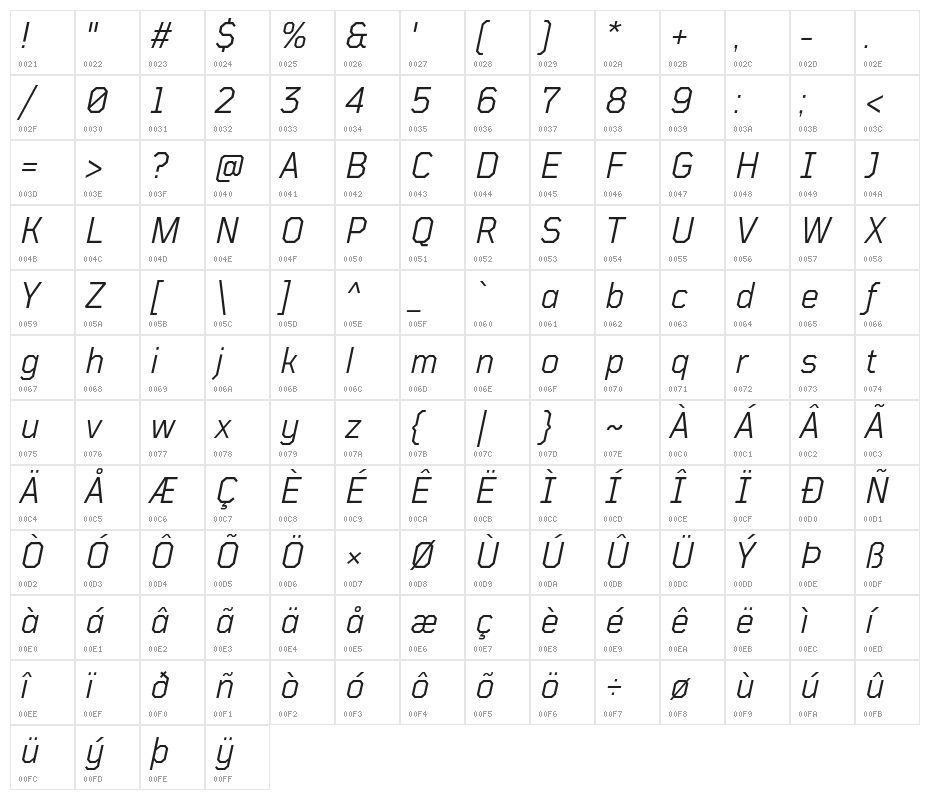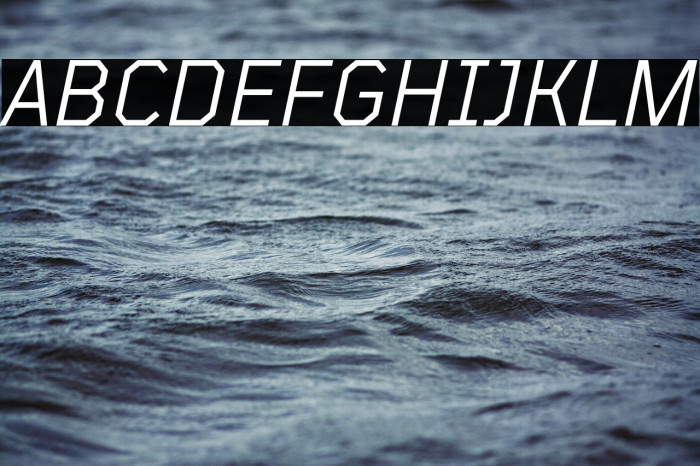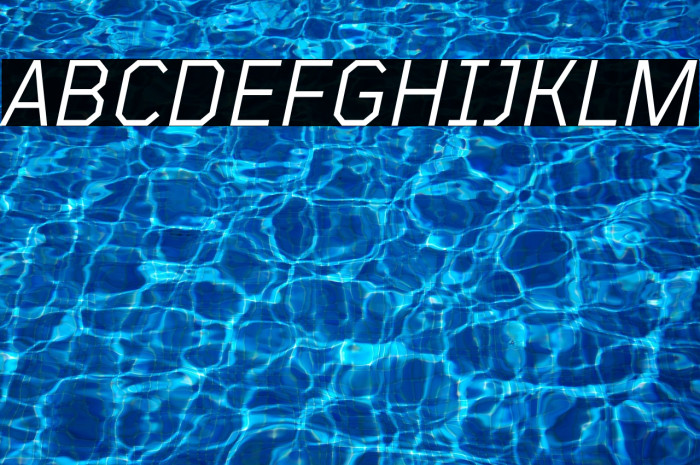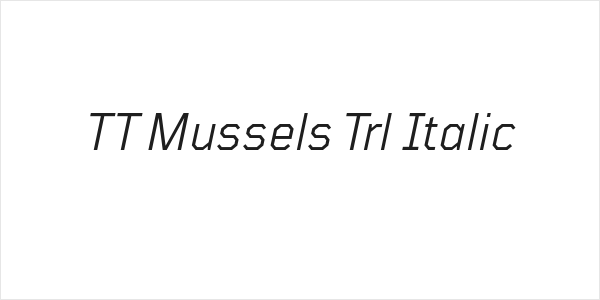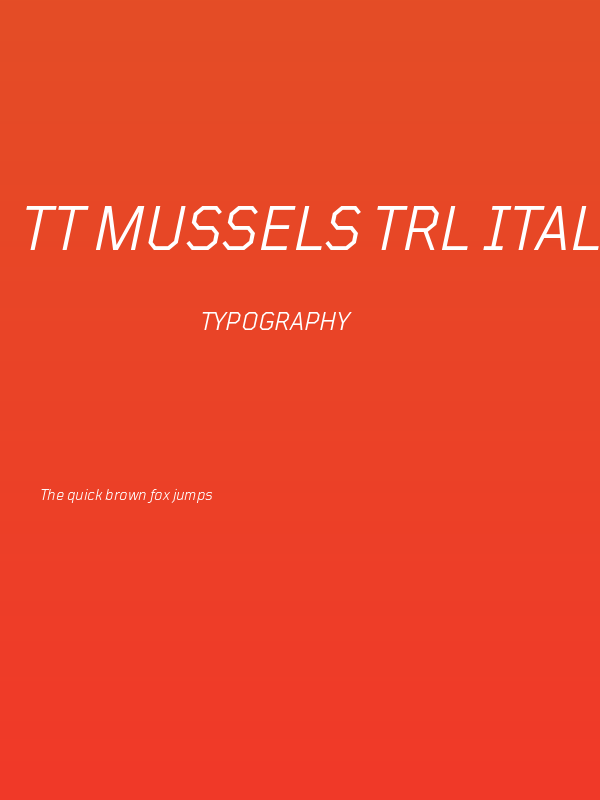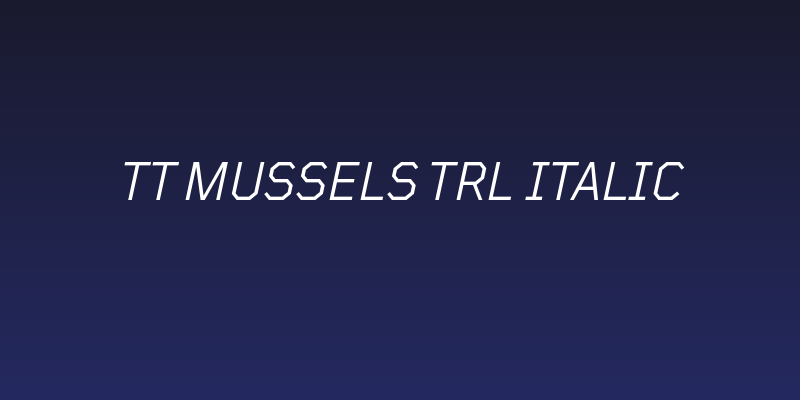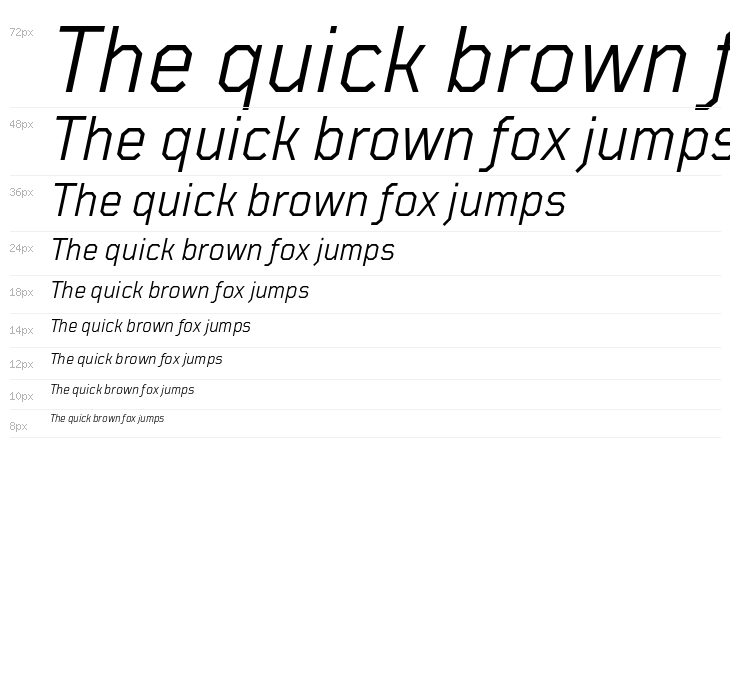
TT Mussels Trl Italic Font
TT Mussels Trl Italic Description
This font features a modern and sleek design with a distinct italic slant, giving it a dynamic and forward-moving appearance. The characters are crafted with precision, showcasing a geometric structure that balances sharp angles with smooth curves. The uppercase and lowercase letters maintain a consistent style, while the numerals and special characters complement the overall aesthetic. The font's clean lines and contemporary feel make it suitable for a variety of design applications, offering versatility and a professional look.
| Proposed Projects | Ideal for branding, editorial design, digital interfaces, and advertising campaigns. |